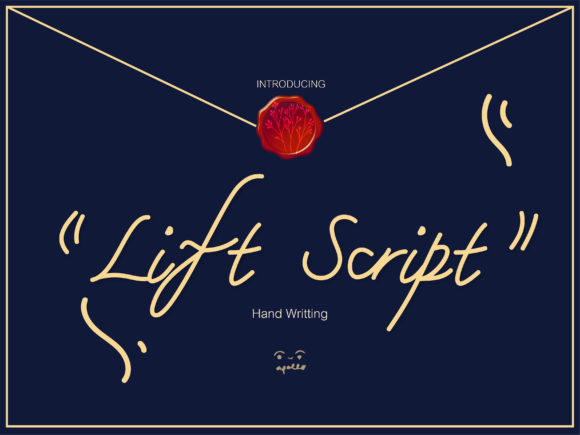
Discover Lift Script: Your New Favorite Elegant Script Font
Every designer has a moment where a project demands a specific kind of personality—a touch of human warmth, a whisper of elegance, and a dash of sophisticated flair. This is where a well-crafted script typeface enters the conversation, not just as a letterform, but as a storyteller. Lift Script is precisely that kind of font. It’s not merely a collection of glyphs; it’s a carefully designed creative asset that brings a distinct, elegant, and modern handwritten style to your work. If you've been searching for a premium font that feels both luxurious and approachable, this might be the missing piece in your design toolkit.
At its core, Lift Script is a beautiful, flowing script font characterized by its smooth, connected letterforms and a balanced rhythm. Its visual personality is one of graceful confidence. The strokes are clean and legible, avoiding the overly ornate or chaotic loops that can make some script fonts difficult to read. Instead, it offers a lovely, cursive flow that feels authentic and personal. The overall appeal lies in its versatility within its niche; it manages to be both stylishly modern and timelessly elegant, making it a superb choice for projects that need to communicate charm, care, and quality.
Where This Creative Font Truly Shines
Understanding where Lift Script works best is key to unlocking its potential. Its primary strength is in applications where a personal, human touch is paramount. Think of the first impression a guest has with a wedding invitation, or the immediate brand feeling a small business owner wants to convey through packaging. This is where this typeface excels.
- Wedding & Event Stationery: This is its natural habitat. The elegant curves are perfect for invitations, save-the-dates, menu cards, and ceremony programs. It sets a romantic and sophisticated tone from the very first glance.
- Branding & Logo Design: For businesses in the lifestyle, beauty, boutique, artisanal food, or wedding industry, Lift Script can form the heart of a brand identity. It works wonderfully for logos, especially when paired with a clean serif or sans serif font for supporting text.
- Editorial & Publishing: In magazine layouts, book cover designs, or blog headers, it can be used for pull quotes, chapter titles, or feature headlines to add a layer of visual interest and draw the reader's eye.
- Digital & Social Media: The font's personality translates beautifully to digital platforms. Use it for eye-catching social media graphics, Instagram quotes, YouTube video titles, or email newsletter headers to boost engagement and stop the scroll.
- Packaging & Product Design: From cosmetic labels to artisan coffee bags, adding Lift Script to packaging design can elevate the perceived value of a product, suggesting craftsmanship and attention to detail.
The Strategic Impact of a Thoughtful Typeface Choice
Choosing a font like Lift Script is more than an aesthetic decision; it's a strategic one that influences how your audience perceives your message. The right script font can significantly affect readability, visual hierarchy, and overall brand perception.
First, consider visual hierarchy. A display font like this naturally commands attention. Using it for headlines or key phrases instantly creates a focal point, guiding the viewer's journey through your layout. It tells the reader, "Start here. This is important." When used sparingly and intentionally, it strengthens the structure of your design.
Second, it directly shapes brand perception and recognition. A consistent use of Lift Script across your brand materials—from your website to your business cards—builds a cohesive and recognizable identity. It communicates specific values: elegance, creativity, personal service, and authenticity. This consistency fosters trust and professionalism, making your brand feel more established and memorable.
Finally, it drives audience engagement. A font with personality creates an emotional connection. The warm, handwritten quality of Lift Script feels more human and less corporate than a standard geometric sans serif. This can make your communications feel more personal, whether it's a thank-you note to a customer or a promotional post, ultimately encouraging a stronger response.
Practical Guidance for Using Lift Script Effectively
To get the most out of this creative font, a thoughtful approach is necessary. Here’s some practical guidance for evaluating its fit and using it successfully in your projects.
Evaluating Project Fit and Readability
Before you commit, ask: Does the tone of my project match the font's personality? Lift Script is ideal for elegant, personal, or creative contexts. It might not be the best choice for a technical manual or a corporate annual report where absolute clarity is the top priority. Always test readability at the size you intend to use it. A beautiful script loses its value if the audience struggles to decipher it. For body text, it's typically reserved for very short phrases or names, not long paragraphs.
Mastering Font Pairings
The true power of a script font is often realized in its pairing. Lift Script works beautifully with a wide range of companions. For a classic, high-contrast look, pair it with a sturdy, traditional serif font. For a clean, modern feel, a simple sans serif font provides a perfect counterbalance. The key is contrast in style and weight. Use the script for your headline or accent, and let the simpler font handle the bulk of the information. This creates a clear hierarchy and ensures readability across your design.
In the vast landscape of modern typography, finding a typeface that resonates with both you and your audience is a rewarding process. Lift Script offers a compelling combination of elegance, personality, and practical versatility. By understanding its strengths and applying it thoughtfully, you can transform ordinary designs into memorable experiences that connect on a human level. Give your next project the lift it deserves.